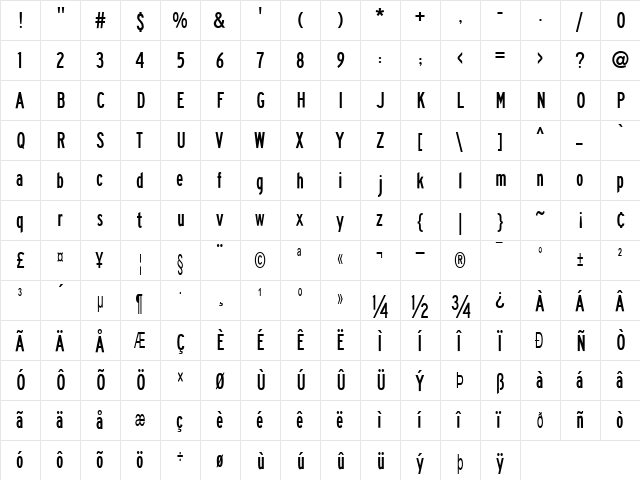
Roadgeek 2005 Series B Regular
Design Context for Roadgeek 2005 Series B Typeface
Roadgeek 2005 Series B is a composed and adaptable typeface that performs quietly and consistently across a wide range of design contexts.